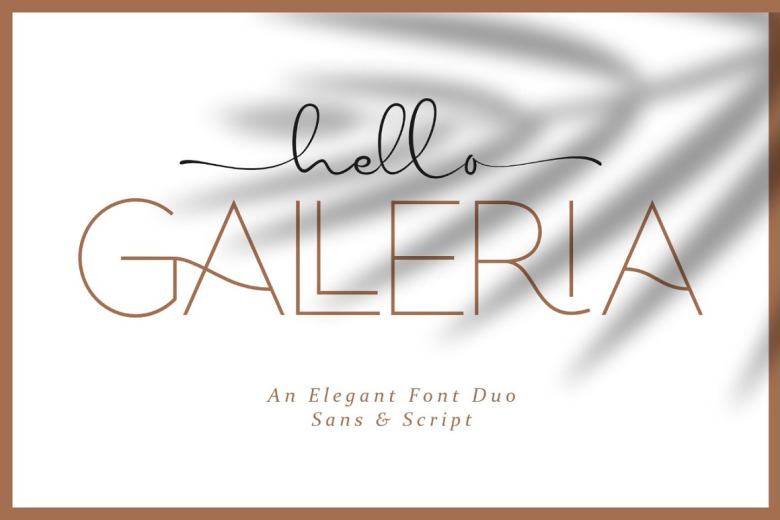
Hello Galleria Font Duo
Introducing Hello Galleria Font Duo; A stunning pair of luxury script and sans fonts, designed to contrast & compliment each other with elegant beauty and contemporary style. Made from font designer named Andika Fez. “Hello Galleria” With modern elegant style this is perfect for branding, logos, invitation, masterheads and more.